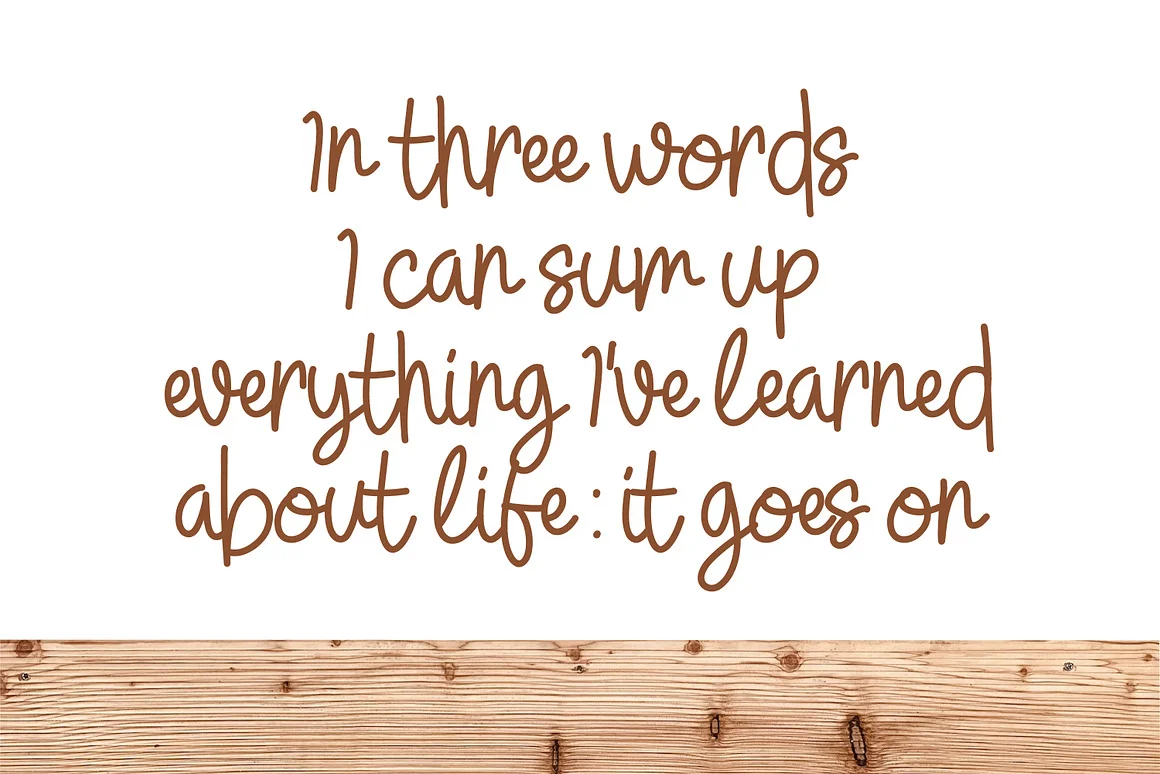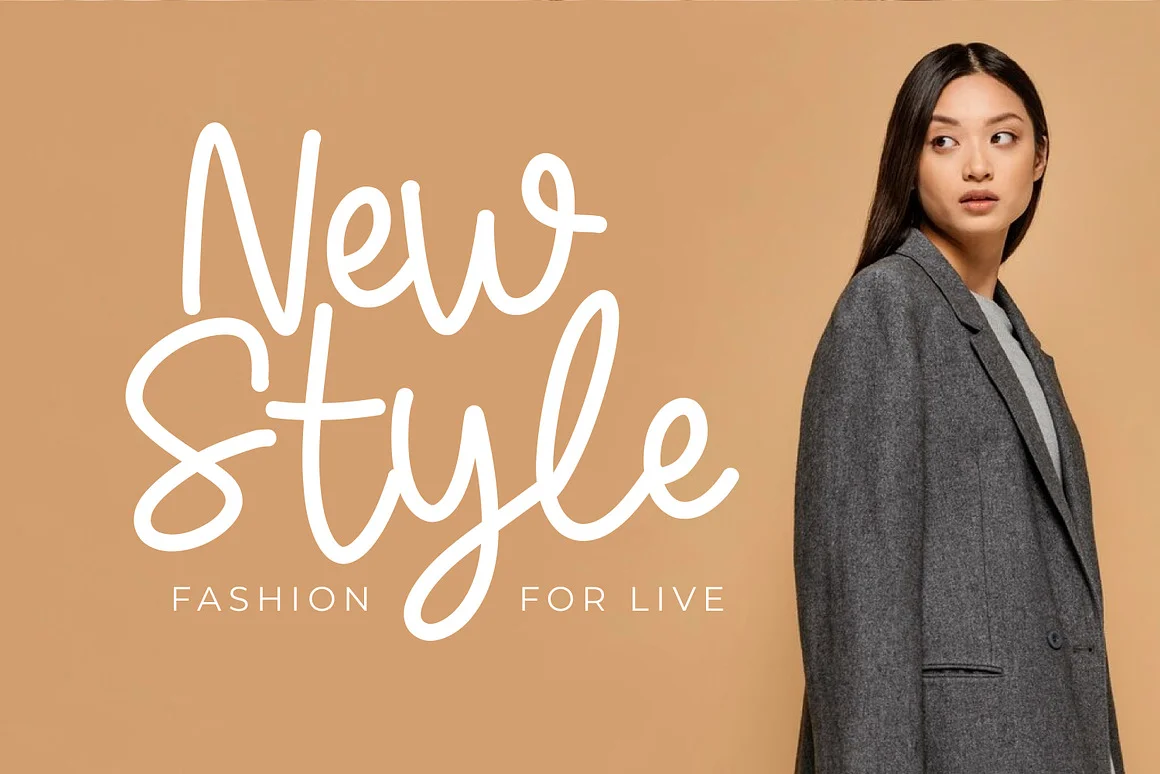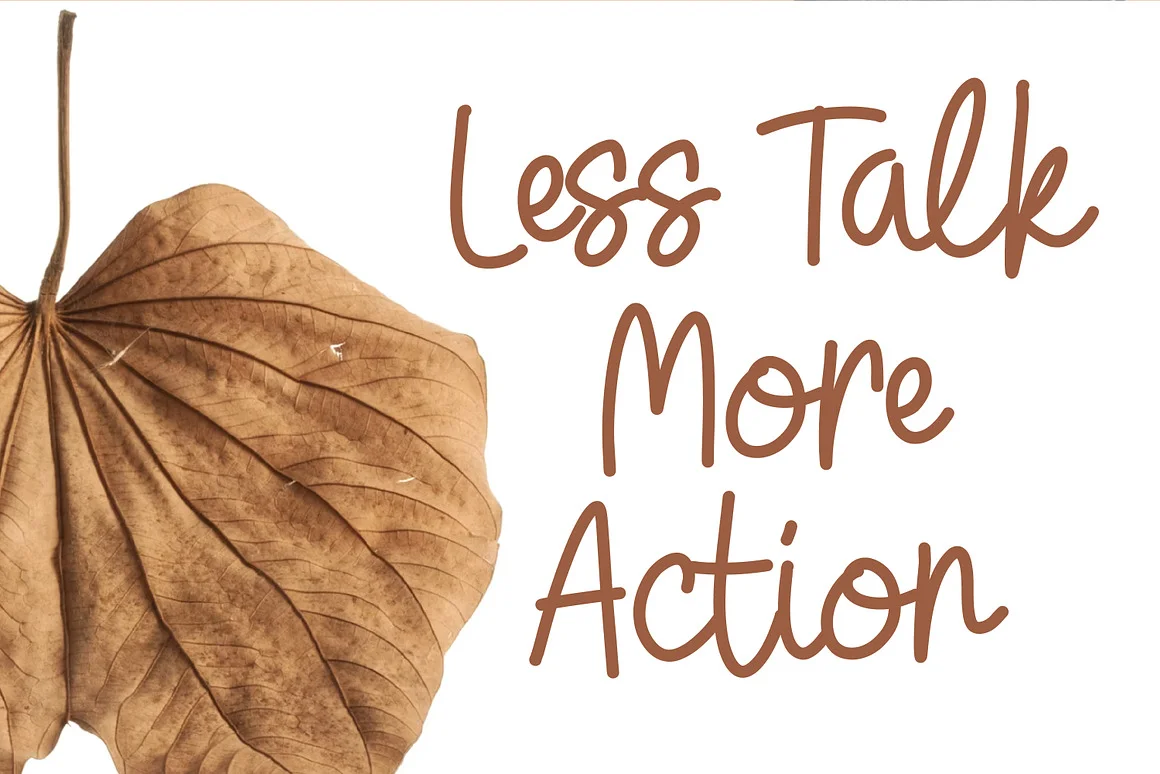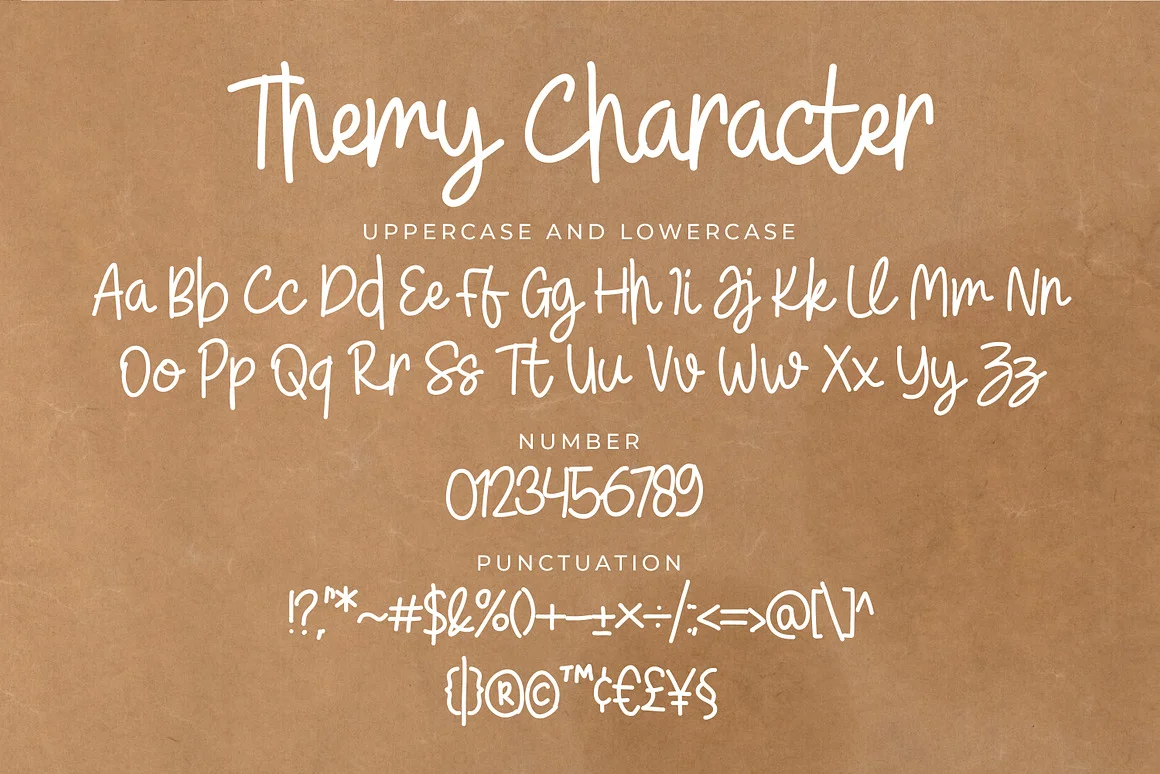
Themy Handletter Signature Font
The Themy Handletter Signature Font excels in personal design applications including artisan brand identities, handcrafted business logos, personal correspondence, custom wedding invitations, boutique business cards, creative portfolios, handwritten greeting cards, authentic social media graphics, craft signage, and personal marketing materials. Its handlettered style makes it perfect for projects requiring authentic elegance that communicates craftsmanship and establishes genuine brand positioning with audiences seeking handmade experiences and personal sophistication.
What makes the Themy Handletter Signature Font truly exciting is its exceptional ability to capture the intimate beauty and personal touch of genuine hand lettering through authentically crafted letterforms. The font features flowing, handcrafted strokes with personal flourishes and artisan proportions that create a distinctly authentic appearance. Each character displays masterful attention to handmade detail with organic curves, personal connections, and natural spacing that give text a genuinely hand-lettered quality. The font's artisan character and personal rhythm create an atmosphere of authenticity while maintaining elegant sophistication and intimate appeal.
The Themy Handletter Signature Font family typically includes regular weight with extensive character coverage, featuring uppercase and lowercase letters, numerals, punctuation marks, and international characters. The typeface often incorporates stylistic alternates, contextual ligatures, and handcrafted swashes that enhance its signature authenticity. These additional elements provide designers with creative flexibility to customize text appearance and achieve more natural-looking personal handwriting that reflects the font's handmade and artisan character.
This authentic signature font distinguishes itself through its remarkable balance of personal charm and professional usability. Unlike digital fonts that lack human touch, Themy Handletter Signature Font embraces the beautiful imperfections and natural variations that make handlettering so appealing. The font's handcrafted character makes it essential for artisan brands, personal businesses, and craft projects where expressing authentic personality and human connection is fundamental to success in handmade and personal service markets.
The Themy Handletter Signature Font presents designers with an outstanding opportunity to incorporate genuine handcrafted elegance into their personal projects. From artisan product brands to personal coaching services, this font delivers the authentic handletter aesthetic that resonates with audiences who appreciate human craftsmanship and personal touch. Its handmade appeal ensures your designs communicate genuine authenticity while the signature styling adds distinctive personality that reflects personal excellence and artisan sophistication in any application requiring handcrafted typography solutions.